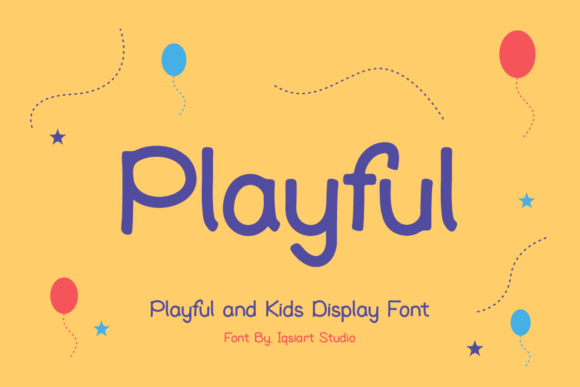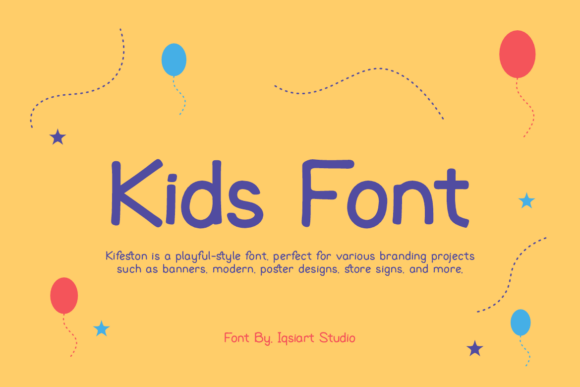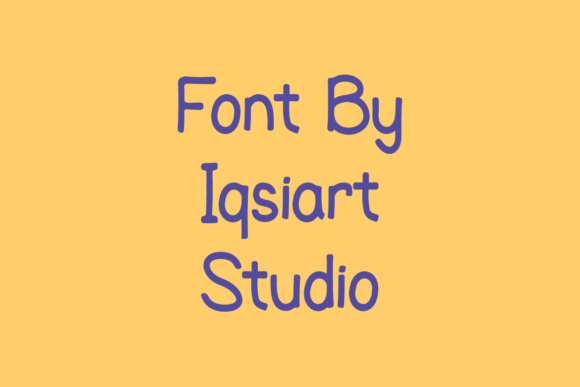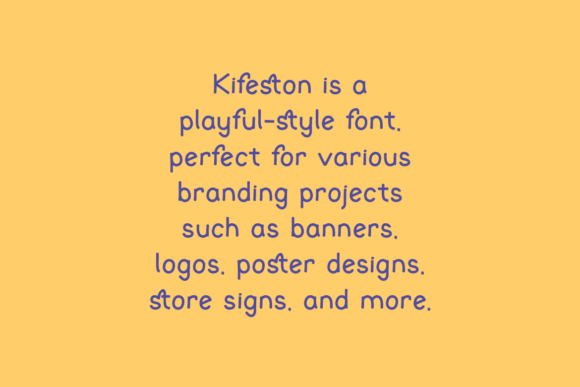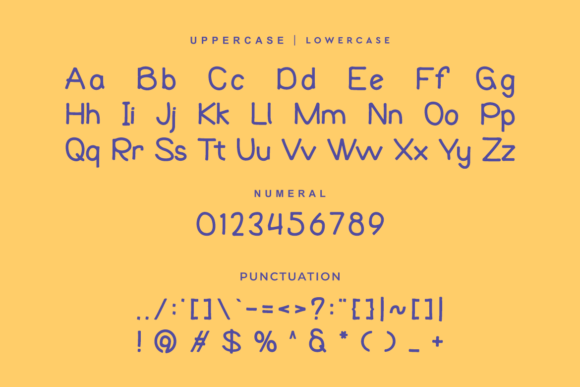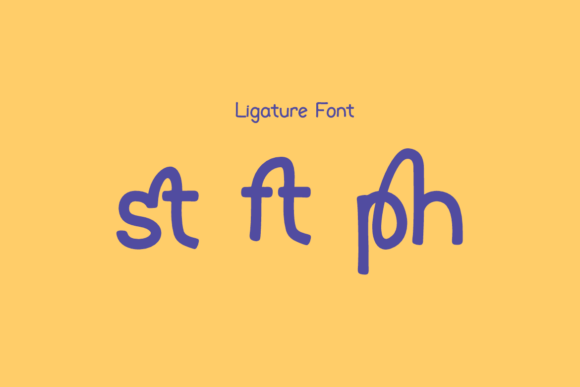
Introduction to Kifeston Font
Enter Kifeston Font, a playful and authentic display typeface that’s about to become your new go-to design resource. With its wide range of themes and font styles, you’ll be spoiled for choice. Whether you’re working on a high-quality logo, a free download for a client, or simply need a font to match your transparent background, Kifeston Font has got you covered.
Key Features of Kifeston Font
- High-quality design with a transparent background, making it ideal for creative projects requiring a seamless look.
- Features a unique, stylish design with a modern aesthetic, perfect for adding a touch of sophistication to any creative project.
- Includes a range of character sets, including uppercase and lowercase letters, numbers, and punctuation marks.
Honest Review: Kifeston Font
As a designer, I’m always on the lookout for high-quality design resources to elevate my creative projects. Recently, I stumbled upon the Kifeston Font, and I’m excited to share my honest review.
- ✨ High-quality typography: The Kifeston Font boasts a clean and modern design, perfect for a variety of creative projects.
- ✨ Transparent background: This feature allows for seamless integration with any design background, giving you complete creative control.
- ⚠️ Limited font styles: Compared to other fonts, the Kifeston Font has a relatively limited range of styles, which may not be ideal for projects requiring extensive typography.
Overall, I’m impressed with the Kifeston Font’s quality and versatility. While it may have some limitations, it’s an excellent design resource for personal projects and a great starting point for designers looking to add a modern touch to their work.
Tips for Getting the Most Out of Kifeston Font